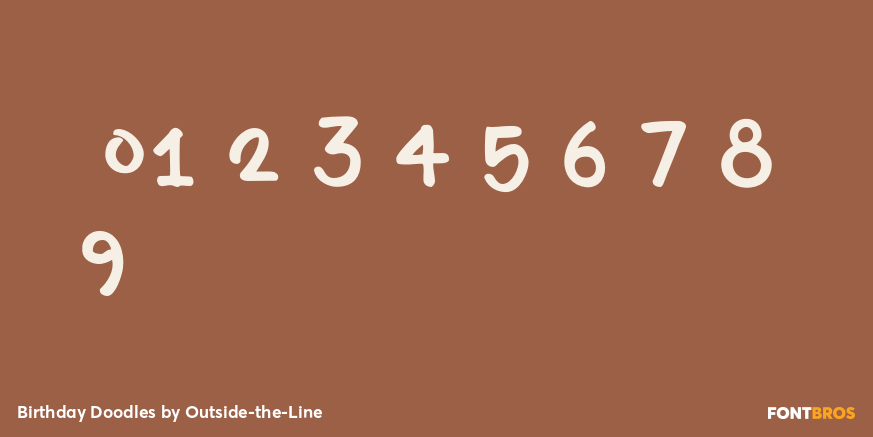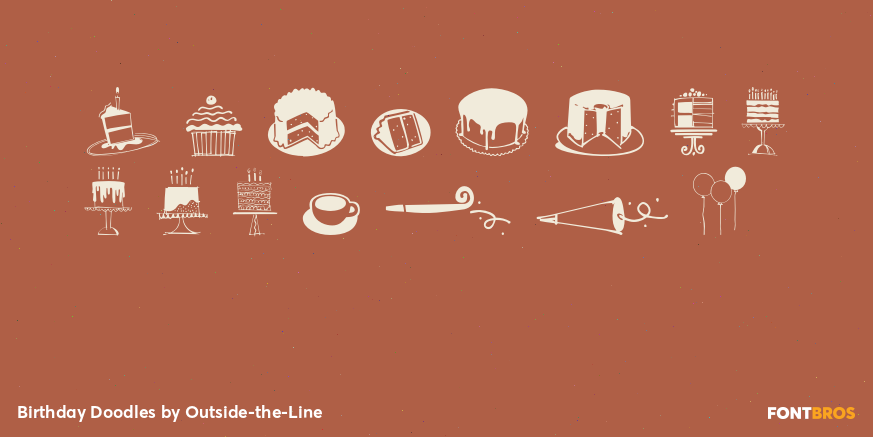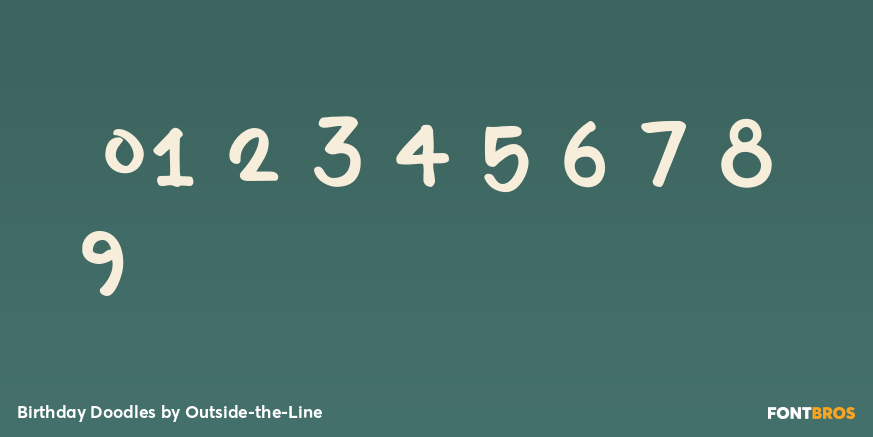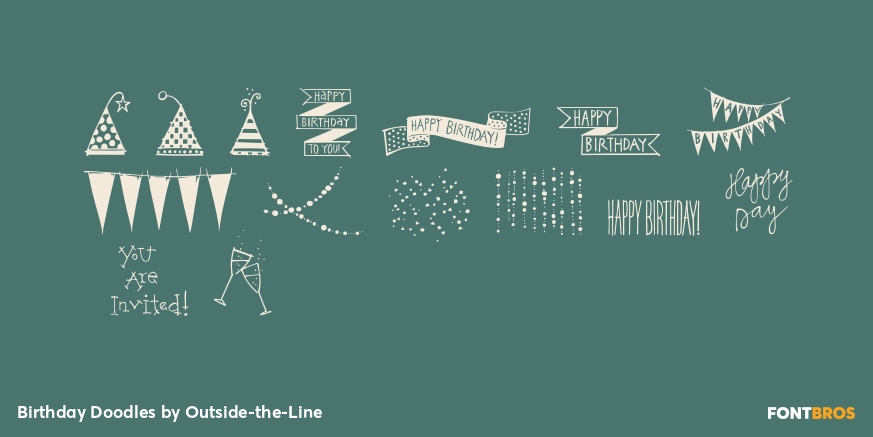
Birthday Doodles
Font Family by Outside-the-Line
Birthday Doodles.... cakes, hats, banners, flags, confetti, streamers, balloons, noise makers, and some written and printed words. Plus a full set of numbers. Everything you need to make cards, invitations, and to scrapbook all your parties.